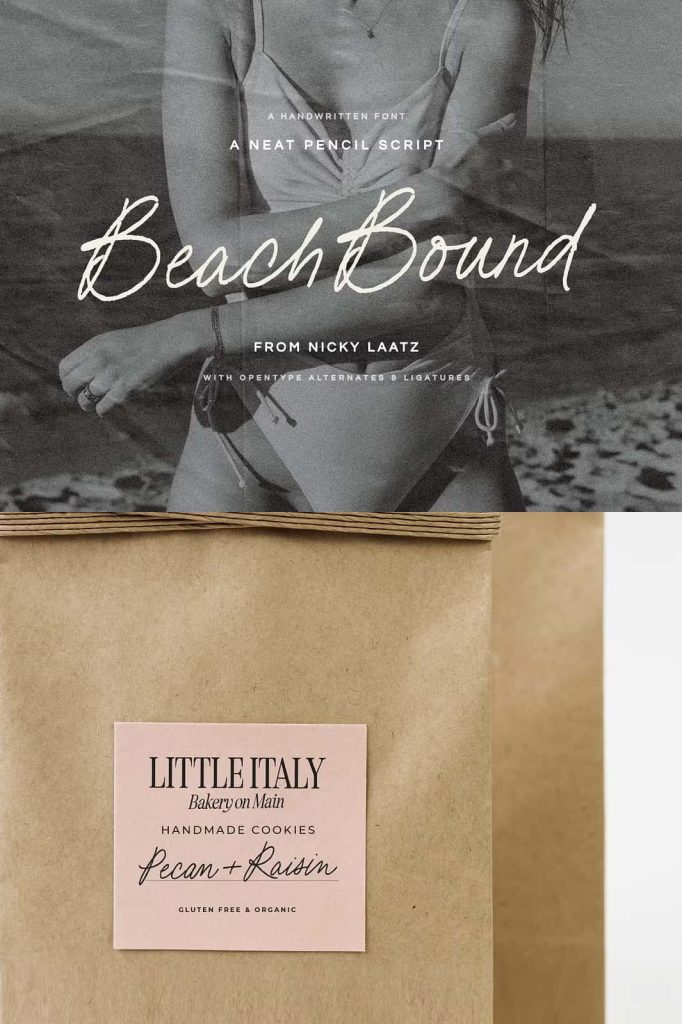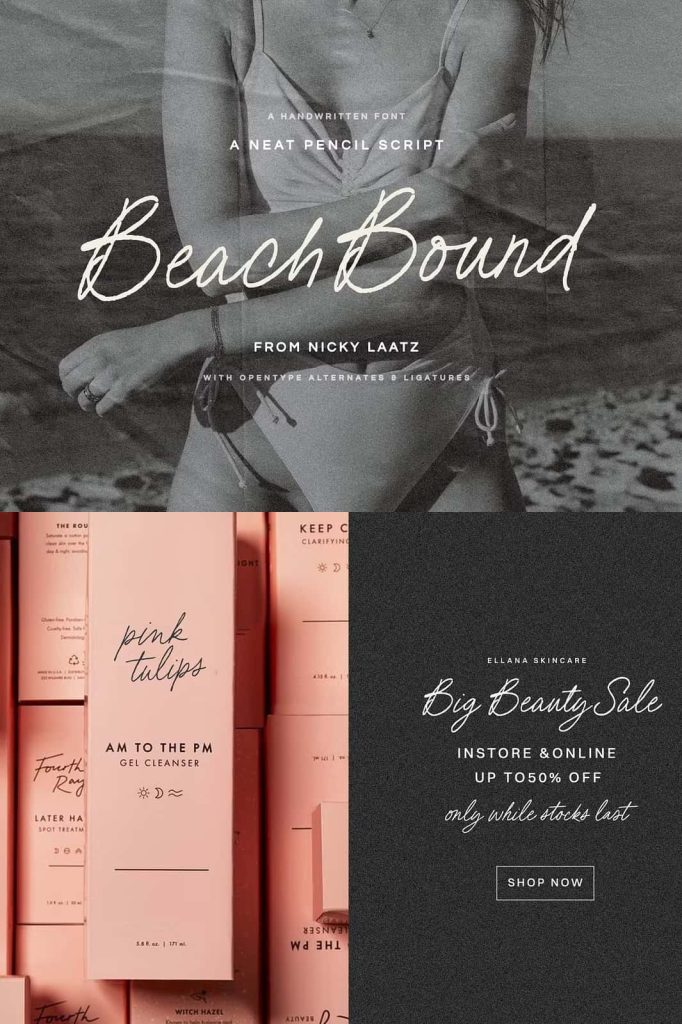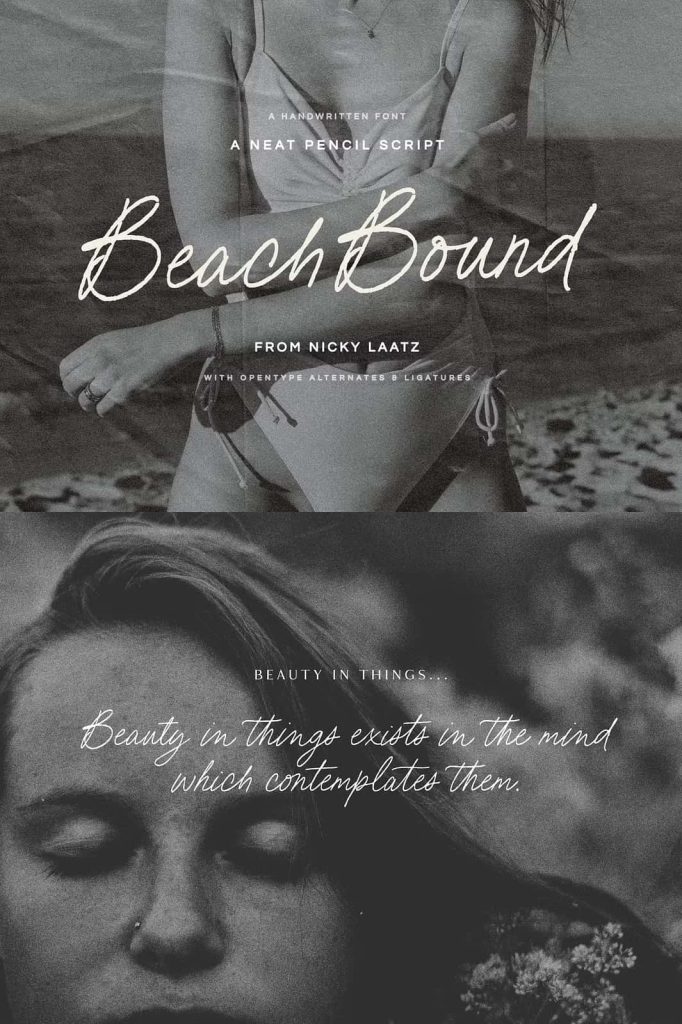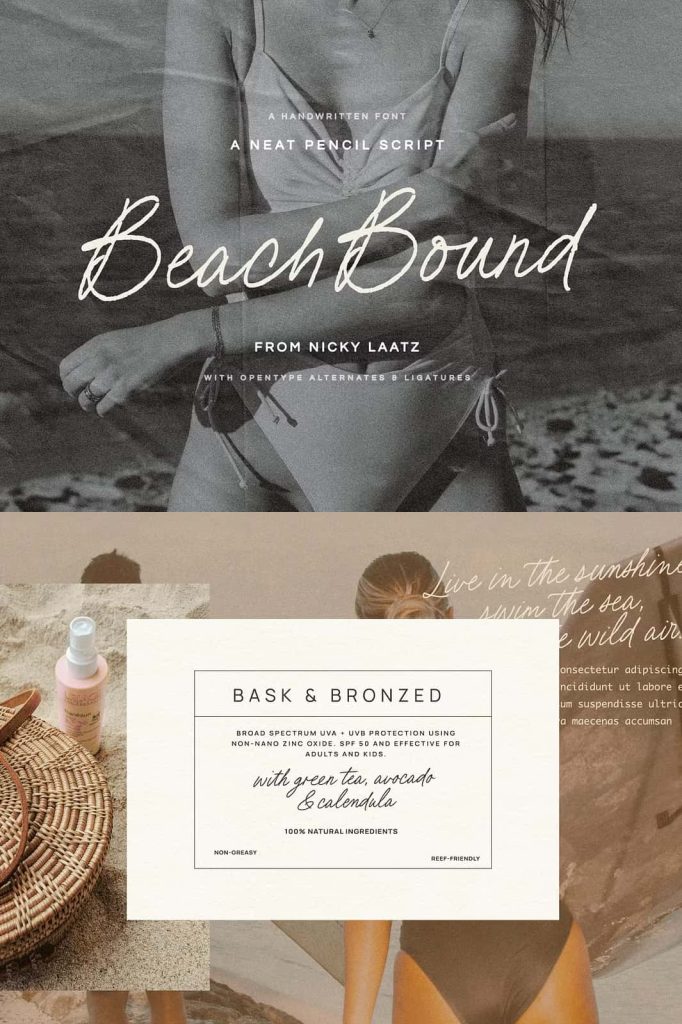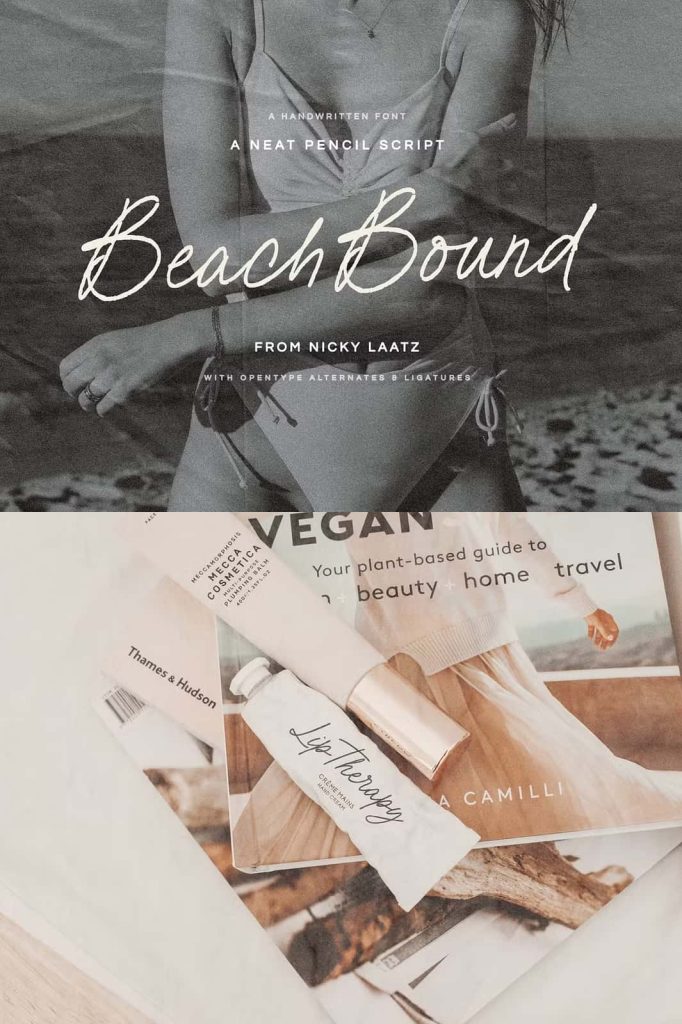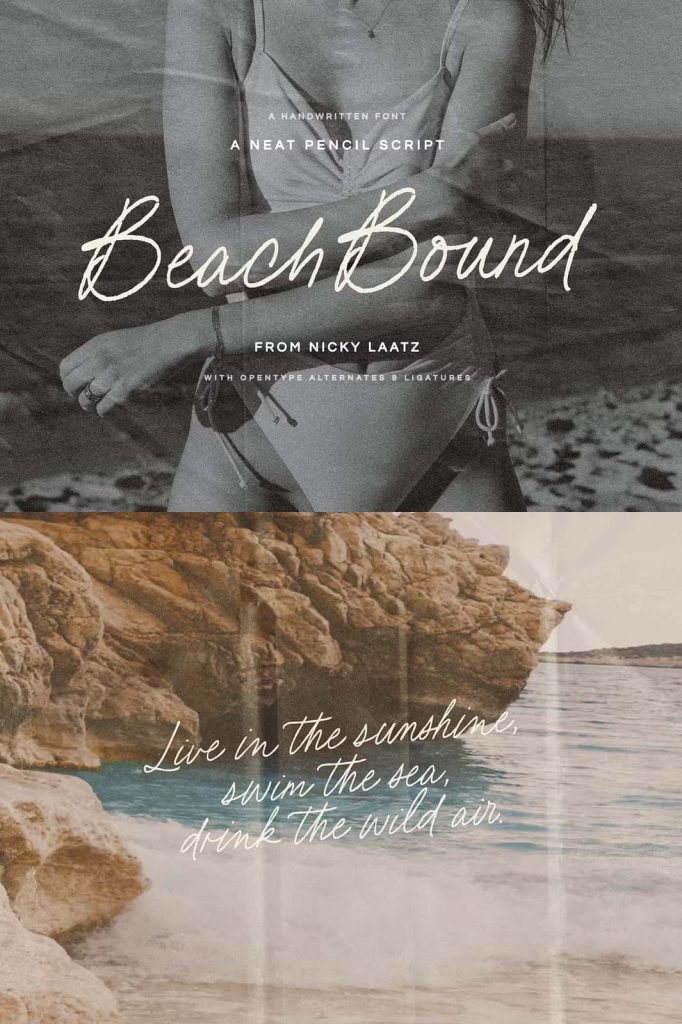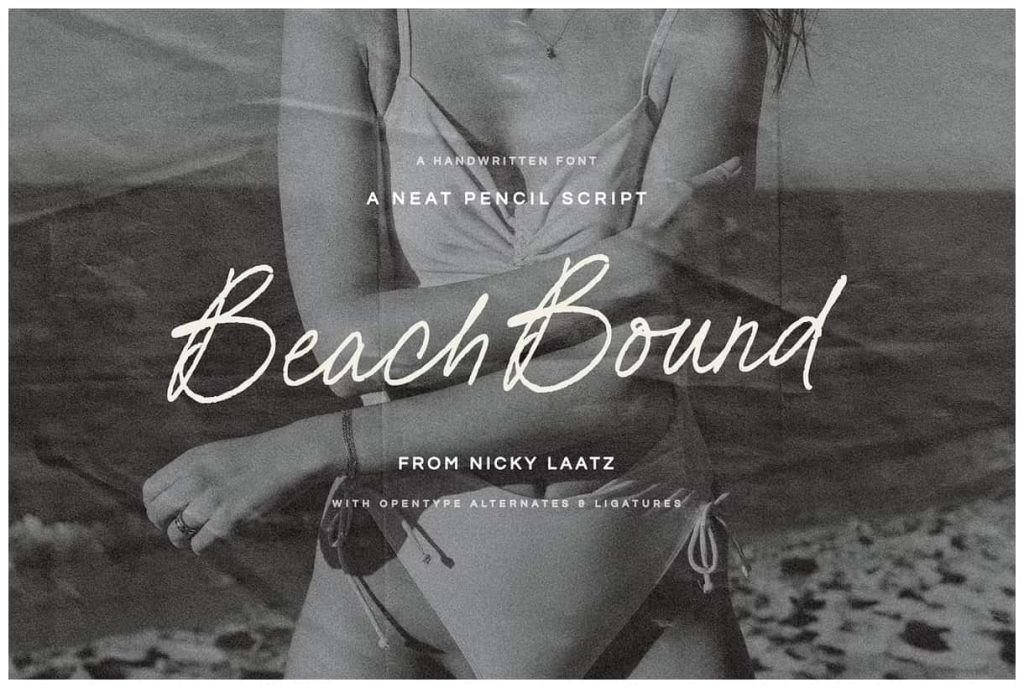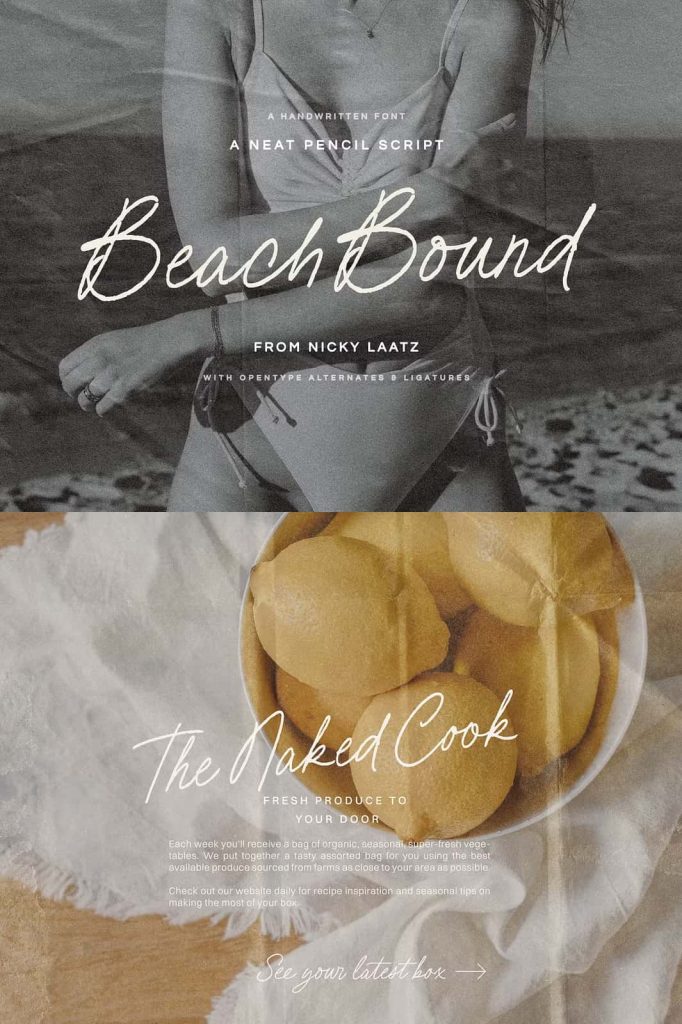
Peach Bound Script Font – A Chic and Versatile Handwritten Typeface
Peach Bound Script Font is a beautifully handcrafted typeface fashioned from authentic pencil handwriting. Designed with care and creativity, this script captures the effortless elegance of natural writing while offering the sophistication and versatility designers crave. With its fluid strokes and stylish character, Peach Bound Script can be dainty, chic, sexy, or cute—depending on how you use it. It’s a truly flexible script that adapts beautifully to both modern and classic design themes.
Perfect for projects that demand personality and charm, Peach Bound Script blends artistic freedom with professional precision. Whether you’re designing for fashion, branding, stationery, or packaging, this font adds a human touch that makes your work stand out.
Inspired by Authentic Pencil Handwriting
Peach Bound Script was designed to capture the beauty and spontaneity of real pencil handwriting. Every stroke has been carefully refined to retain the natural imperfections and flow of authentic writing. The result is a script that feels organic and personal—one that brings warmth and emotion to your designs.
Unlike overly polished digital fonts, Peach Bound Script maintains a sense of hand-drawn character, allowing your text to feel alive and expressive. The pencil-inspired texture adds depth and softness, making it perfect for branding, product packaging, invitations, and fashion editorials. This natural style gives your work a timeless appeal while keeping it fresh and modern.
Full of Personality and Expression
One of Peach Bound Script’s greatest strengths is its range of expression. This font can shift from being delicate and elegant to playful and modern with ease. Its flexible form allows you to adapt it to a wide variety of design styles. Whether you want a minimalist logo, a romantic wedding invitation, or a bold fashion headline, Peach Bound Script helps you express it beautifully.
The font’s two included weights give designers even more creative freedom. The lighter version is perfect for feminine, airy designs, while the bolder weight makes a statement in branding, posters, and digital media. Together, they create a dynamic duo that allows you to maintain visual consistency while varying tone and emphasis.
Enhanced with OpenType Ligatures and Alternates
Peach Bound Script comes with extra OpenType ligatures and stylistic alternates that bring the text to life on the page. These features allow you to create natural, flowing letter combinations that mimic true handwriting. Every curve and connection has been thoughtfully designed to ensure smooth transitions between letters.
With multiple alternates for key characters, you can customize each word to suit your style. The ligatures prevent repetitive patterns, giving your typography an organic, effortless rhythm. Whether you’re crafting a logo, a social media quote, or a product label, these options let you fine-tune your design for maximum visual impact.
Perfect for Modern Branding and Fashion Design
Peach Bound Script Font is especially well-suited for fashion, beauty, and lifestyle brands that want to convey sophistication with a human touch. Its soft curves and refined lines make it perfect for luxury packaging, lookbooks, editorials, and digital branding. The font’s stylish personality adds depth and allure to your visual identity without overwhelming the design.
When used in invitations or stationery, Peach Bound Script exudes romance and elegance. For social media and advertising, it offers the right balance of playfulness and professionalism. This adaptability makes it an essential typeface for any designer’s toolkit—whether you’re creating something bold and fashionable or subtle and classic.
Express Creativity with Peach Bound Script
Peach Bound Script Font isn’t just a typeface—it’s a creative experience. Its handcrafted nature, expressive versatility, and advanced typographic features make it the perfect choice for projects that require emotion, charm, and authenticity. With two weights and an abundance of alternates, you can design freely, shaping your typography to match any mood or message.
From luxury branding and packaging design to wedding invitations and digital content, Peach Bound Script gives your work a signature style that feels genuine and refined. Each stroke tells a story, each letter flows with grace, and together they create a visual voice that is uniquely yours.
Bring your ideas to life with the timeless beauty of Peach Bound Script Font—a typeface that combines elegance, flexibility, and personality to make every design unforgettable.